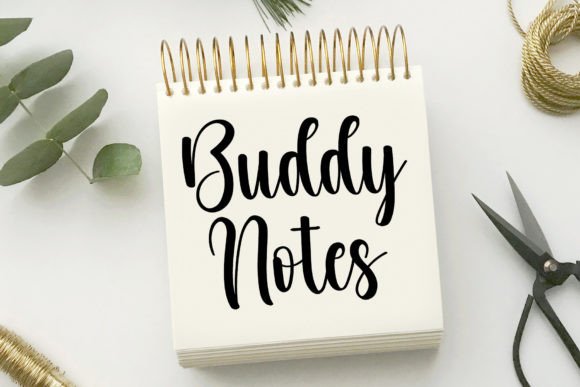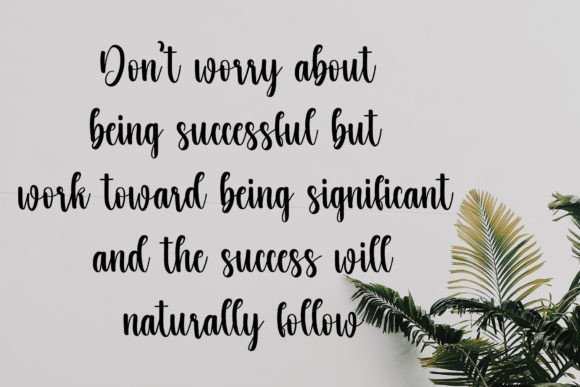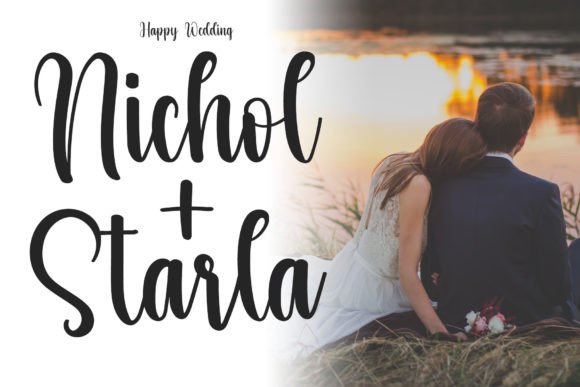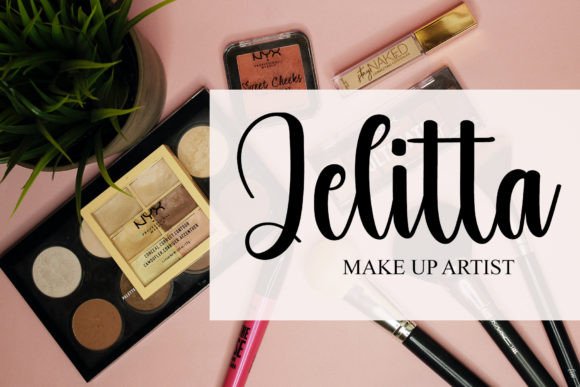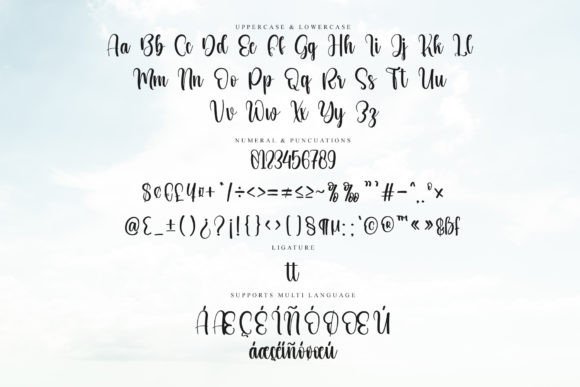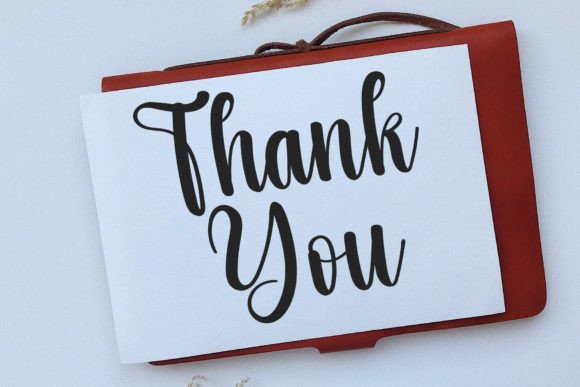
Introducing Feedback Font: The Elegant and Charming Typeface for Your Designs
Are you a designer or crafter looking for a font that adds a touch of elegance and charm to your creations? Look no further than Feedback Font! This beautiful typeface is perfect for a variety of design projects, from wedding invitations and thank you cards to quotes, greeting cards, logos, and business cards.
The Characteristics of Feedback Font
Feedback Font is a handwritten font that exudes a sense of sophistication and refinement. Its elegant lines and curves make it perfect for designs that require a touch of luxury and glamour. The font is highly legible, making it easy to read and understand, even at small sizes.
One of the standout features of Feedback Font is its versatility. It can be used for a wide range of design projects, from formal events like weddings and galas to more casual applications like social media graphics and blog posts. The font is also highly customizable, allowing you to adjust its size, color, and style to suit your needs.
Why Choose Feedback Font for Your Designs?
So why choose Feedback Font for your designs? Here are just a few reasons why this font stands out from the crowd:
- Elegance and charm: Feedback Font has a unique and sophisticated look that adds a touch of elegance and charm to any design.
- Versatility: The font can be used for a wide range of design projects, from formal events to casual applications.
- Legibility: Feedback Font is highly legible, making it easy to read and understand, even at small sizes.
- Customizability: The font is highly customizable, allowing you to adjust its size, color, and style to suit your needs.
How to Use Feedback Font in Your Designs
Using Feedback Font in your designs is easy! Here are a few tips to get you started:
- Pair it with other fonts: Feedback Font pairs well with other fonts, such as sans-serif fonts like Arial or Helvetica. Experiment with different font combinations to find the perfect look for your design.
- Use it for headings and titles: Feedback Font is perfect for headings and titles, where its elegant lines and curves can really shine.
- Add some texture and patterns: Feedback Font looks great with texture and patterns, such as watercolor or gold foil. Experiment with different textures and patterns to add depth and interest to your design.
Design Ideas that Showcase Feedback Font
Here are a few design ideas that showcase Feedback Font:
- Wedding invitations: Feedback Font is perfect for wedding invitations, where its elegance and charm can set the tone for a beautiful and memorable event.
- Thank you cards: Use Feedback Font to add a touch of elegance and sophistication to your thank you cards.
- Quotes and typography: Feedback Font is a great choice for quotes and typography, where its elegant lines and curves can really make the text shine.
- Greeting cards: Feedback Font is perfect for greeting cards, where its charm and elegance can help you express your feelings in a beautiful and meaningful way.
- Logos and branding: Use Feedback Font to create a logo or brand identity that exudes elegance and sophistication.
- Business cards: Feedback Font is a great choice for business cards, where its professionalism and elegance can help you make a great impression.
In conclusion, Feedback Font is a beautiful and elegant typeface that is perfect for designers and crafters looking to add a touch of sophistication and refinement to their creations. Its versatility, legibility, and customizability make it a great choice for a wide range of design projects, from formal events to casual applications. Whether you’re designing wedding invitations, thank you cards, quotes, greeting cards, logos, or business cards, Feedback Font is sure to impress.